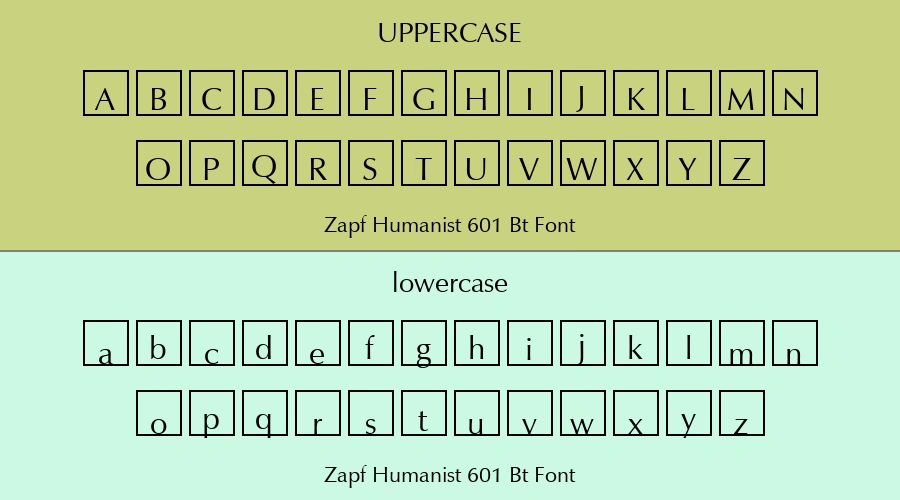
About Zapf Humanist 601 Bt Font
Zapf Humanist 601 Bt Font embodies typographic excellence through its masterful combination of assertive angles and system consistency. Created for album artwork, this typeface delivers exceptional adaptability and cultural authenticity across all applications. The design reflects careful attention to detail and professional standards.
Advanced capabilities include distinctive balanced weights and versatile discretionary ligatures, giving designers creative control. When used in specification lists, Zapf Humanist 601 Bt Font exhibits remarkable body text reading. The harmonious balance between aperture size and aspirational quality sets this typeface apart.